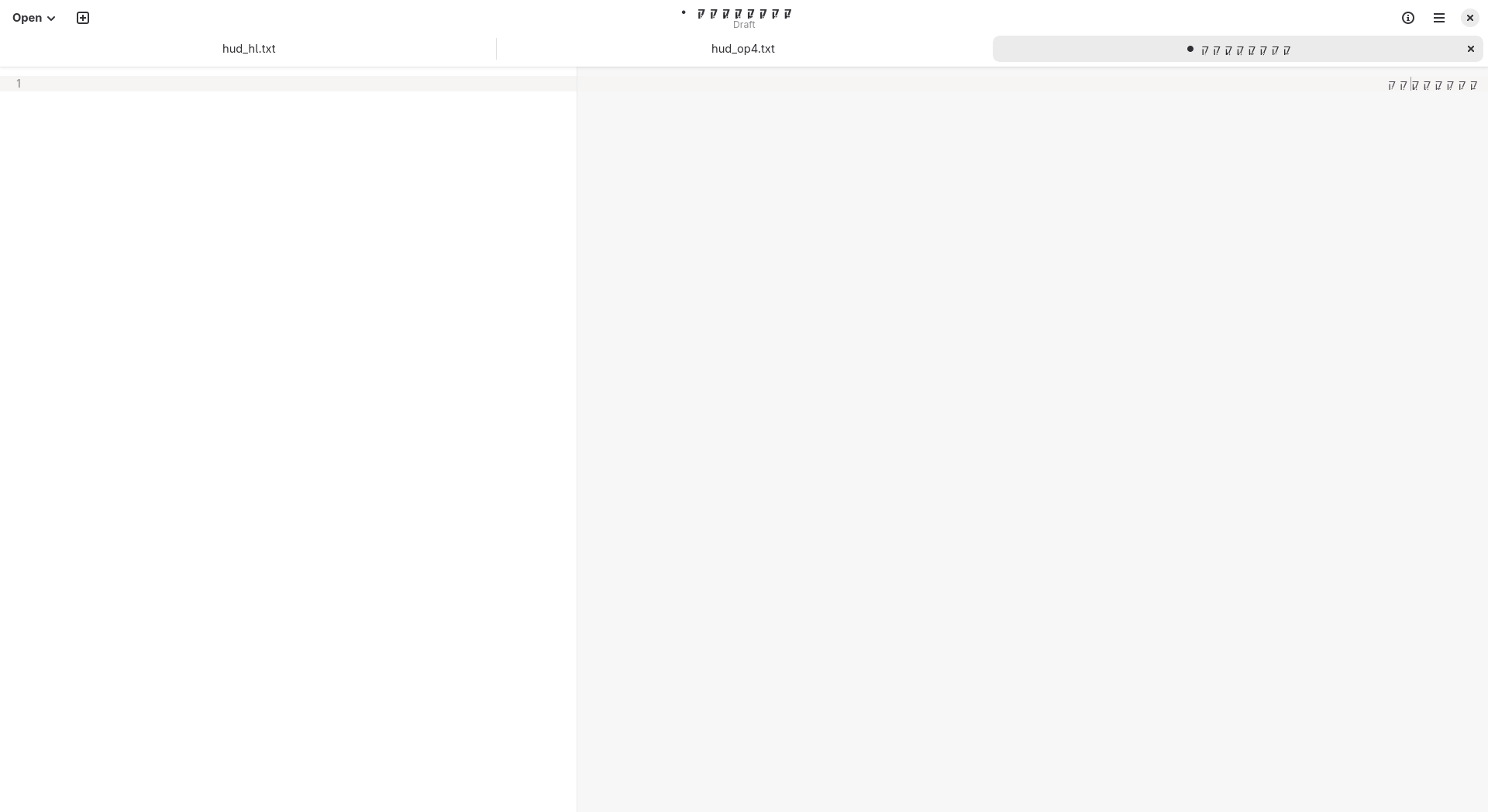
The default Hebrew language font is very illegible (especially with diacritics), so I’d like to change it to something else. However – in Tweaks and refine – I cannot change the font exclusively for Hebrew, as you cannot choose the font per-script.
From what I found online it seems that you can do this by editing the font config files, but I couldn’t understand what specific files I would need to change and how. If someone knows of a terminal command – or, ideally – a graphical way to do this, please let me know, it would be very appreciated.
I think you could copy /etc/fonts/conf.d/65-0-google-noto-sans-hebrew-vf.conf to /etc/fonts/conf.d/99-hebrew-custom-font.conf and then change <string>Noto Sans Hebrew</string> lines to whatever font you want to use for Hebrew. Same with /etc/fonts/conf.d/66-google-noto-serif-hebrew-vf.conf. This requires a session restart to apply everywhere.
Sorry for the late reply. It’s pretty much impossible for me to tell apart niqqud without zooming in or putting my face right up against the monitor. The pairs patah & tsere, segol & qamats, and shwa & hiriq are especially difficult to tell apart.
I can absolutely see what you’re saying, we have several ways to overcome this issue.
Try and affect the default font in order to find something more suitable.
I think this font is by Maxim Iorsh who founded the Culmus project (I’m not certain), if you can send me the font name I’ll check, we can send him a bug report about this with your screenshot.
Thanks for bringing that up, which font did you find more suitable for this use case?